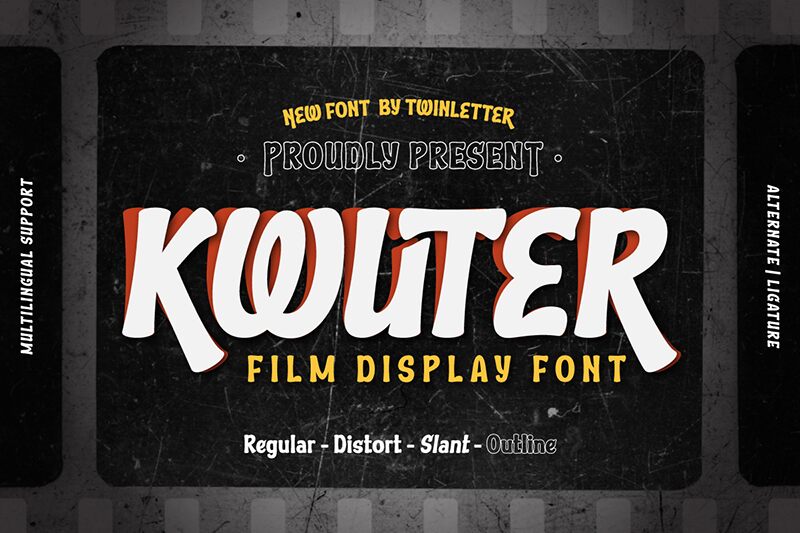
Kwuter font family was designed with a unique vision in mind: to stand out in a way that is meaningful and different to the reader. This fancy free font carries a sense of cinema and nostalgia, allowing brands to create artworks that automatically engage the viewer. Movie posters are famous in pop culture for their distinct style, and Kwuter was born to give you a suitable tool to help you reflect this with modern vintage vibes but with your own twist.
Imagine the titles of famous fantasy books and movies like Lord of the Rings and Indiana Jones. Both have managed to create an artistic style that’ll always be recognized. And with Kwuter’s dynamic energy and bold look, you can do the same. Use Kwuter’s two styles for your branding and packaging projects or combine the former with flat illustrations for online posts with an engaging visual style.